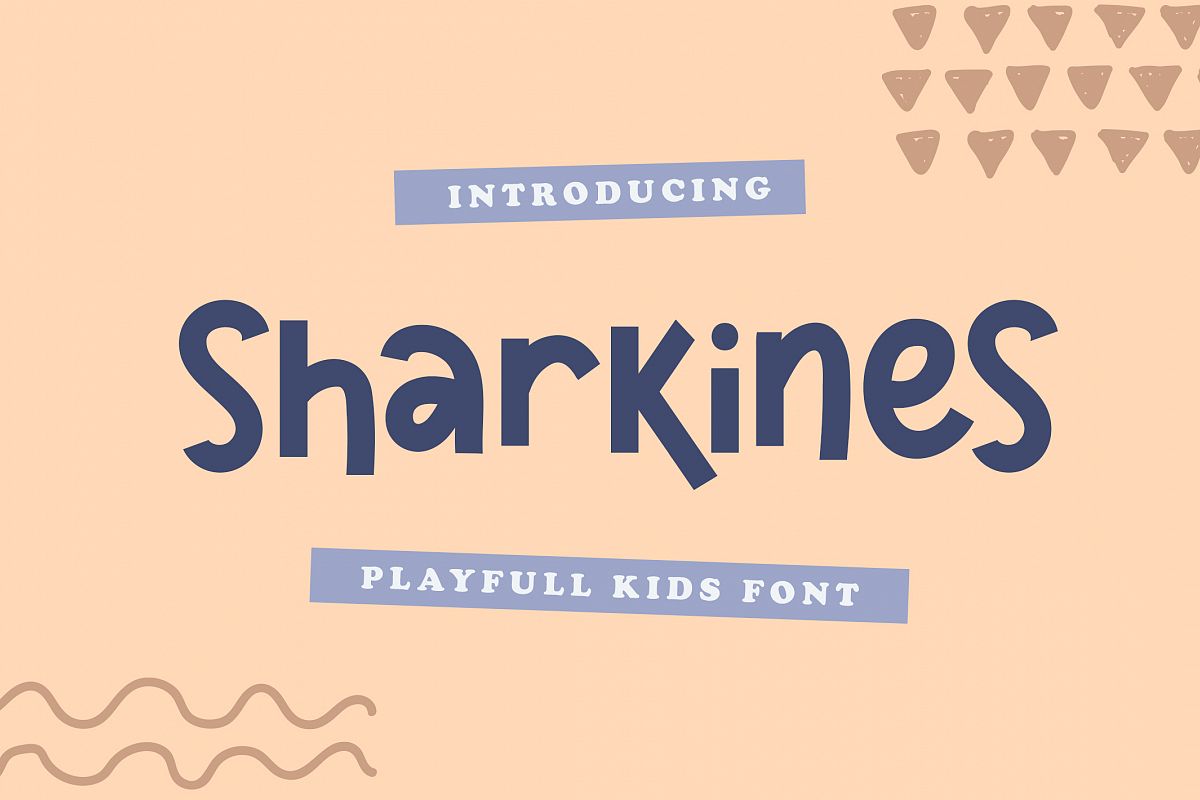
Sharkines | Playful Kids Font
Sharkines is a cute, yet bold display font with a whimsical twist. It will add an adorable and dorky feel to any design project!